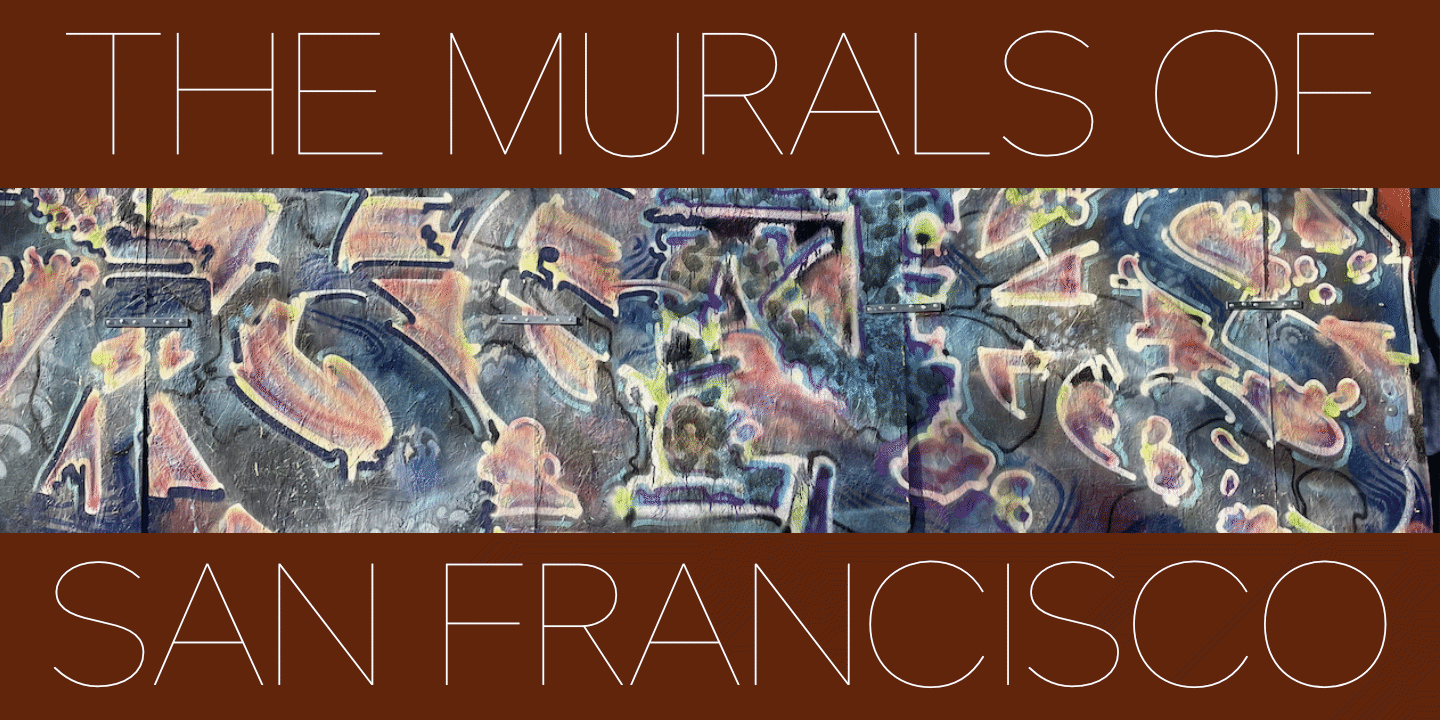
Standard CT SemiExtended Hairline
Standard, a cousin to the ubiquitous Helvetica and very similar to Akzidenz-Grotesk, is an alternative sans serif that is considerably warmer and a bit more idiosyncratic than those better-known faces. Standard CT expands on the original with more weights, support for many more languages, powerful OpenType features, and much more. In addition to Extra Condensed Medium, and Stencil Bold, the Standard CT family is available in 4 widths of 9 weights each:
Extra Condensed
Medium
Condensed
Hairline, Ultra Light, Extra Light, Light, Regular, Medium, Demi, Bold, Extra Bold
Normal Width
Hairline, Ultra Light, Extra Light, Light, Regular, Medium, Demi, Bold, Extra Bold
SemiExtended
Hairline, Ultra Light, Extra Light, Light, Regular, Medium, Demi, Bold, Extra Bold
Extended
Hairline, Ultra Light, Extra Light, Light, Regular, Medium, Demi, Bold, Extra Bold
Stencil
Bold